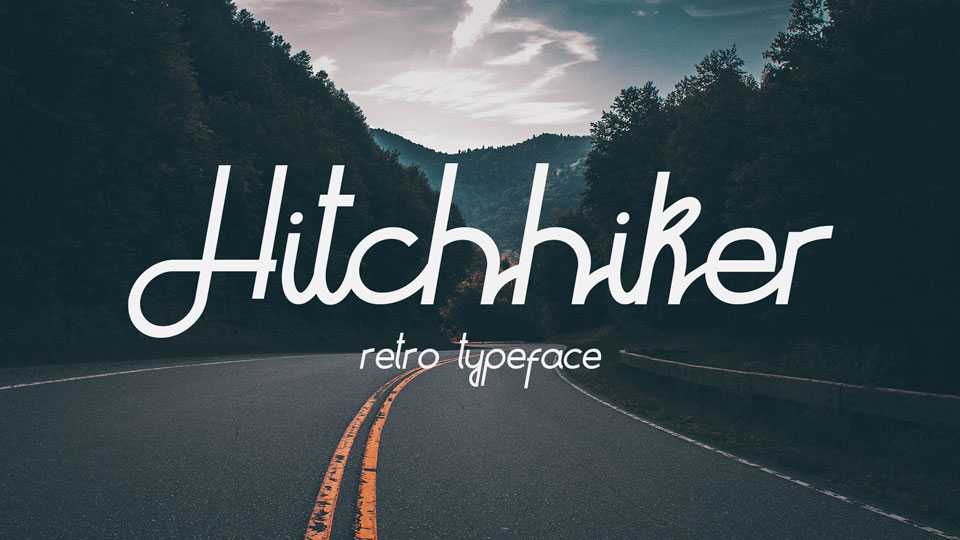
Download Hitchhiker font, a retro typeface in two styles, inspired by America’s mid-20th century and road travelling philosophy, especially by Jack Kerouac’s novel “On the road”.
Designer: Slava Krivonosov